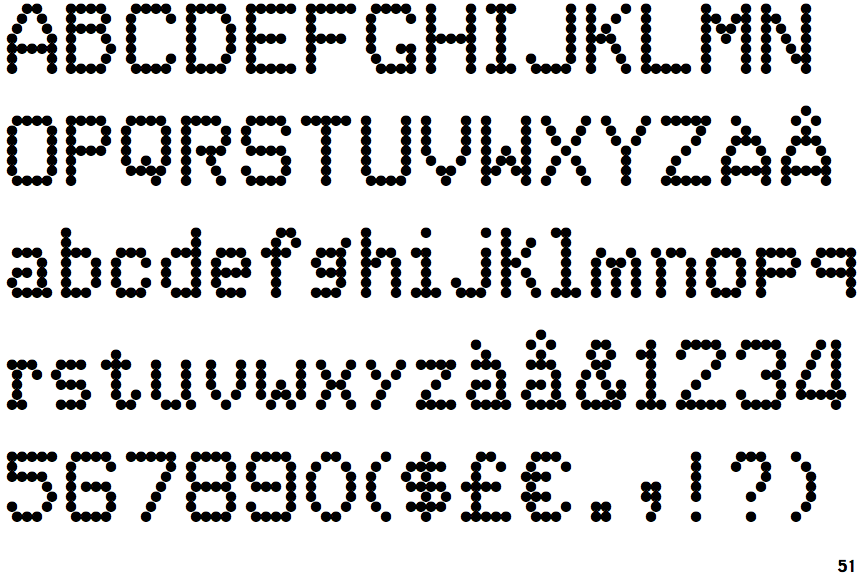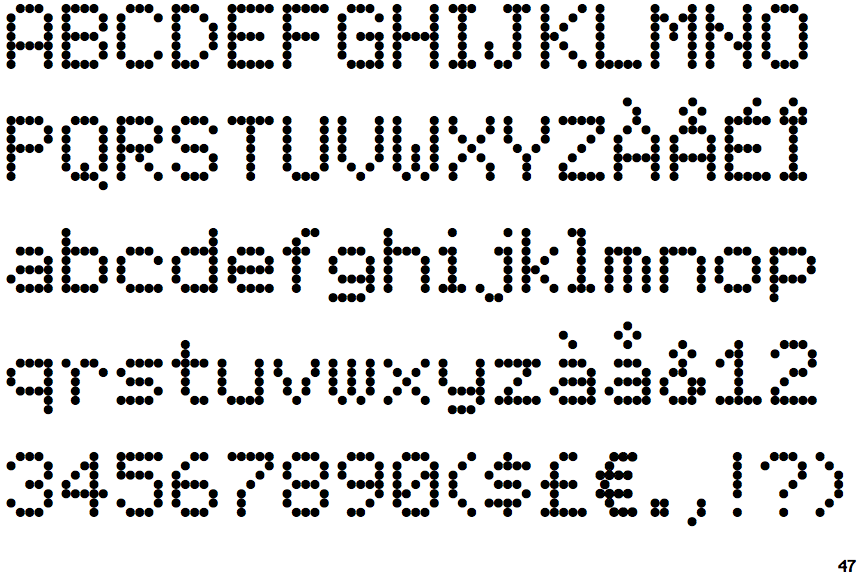
Microsoft Office Dotted Fonts. Tenorite, created by erin mclaughlin and wei huang, is the more traditional style out of the five. Underline a dotted font downloads link in large library of the dotted font unicode downloads.
There Are More Dots That Make Up The Letters, And They Are Closer Together.